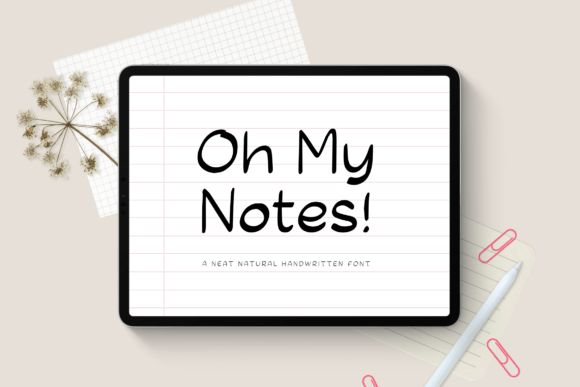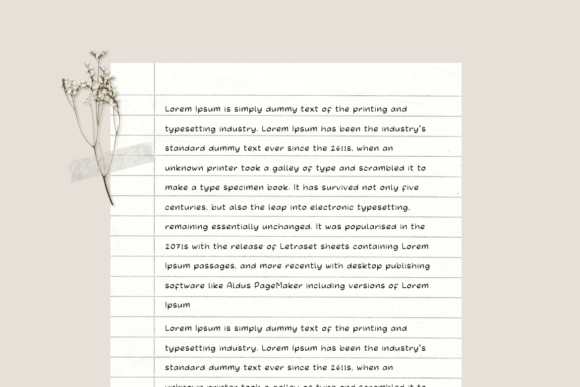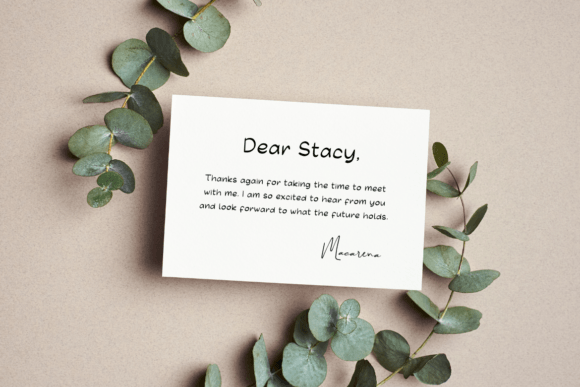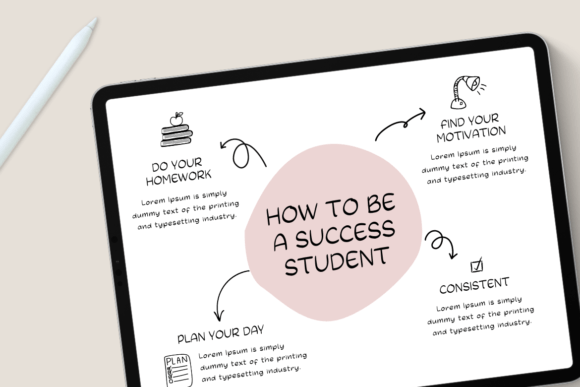
Oh My Notes Font
About Oh My Notes Font
**’Oh, My Notes’ Font: Casual, Natural, and Versatile**
The “Oh, My Notes” font is a casual handwritten typeface with a natural stroke that exudes a friendly and approachable vibe. Its neat and tidy appearance makes it suitable for a wide range of applications across various design projects. Here’s how you can make the most of the “Oh, My Notes” font:
1. **Note Taking and Digital Planners:** The font’s natural and casual handwriting style is perfect for digital planners, note-taking apps, journaling, and any digital or printed materials designed to mimic handwritten notes.
2. **Product Descriptions:** Use “Oh, My Notes” to create product descriptions for e-commerce websites and catalogs. Its approachable style can help convey product information in a friendly and engaging way.
3. **Headlines and Subheadings:** Design eye-catching headlines and subheadings for articles, blog posts, and presentations. The font’s natural strokes add a personal touch to your content.
4. **Product Paragraphs:** Enhance product descriptions with this font to create a warm and inviting atmosphere for potential customers. It can make your product descriptions more relatable and trustworthy.
5. **Logos and Branding:** Craft unique logos and branding elements that reflect a friendly and approachable brand personality. “Oh, My Notes” can add a personal and human touch to your brand identity.
6. **Social Media Graphics:** Create engaging and relatable social media posts, captions, and graphics. This font can help you establish a friendly and personable online presence.
7. **Greeting Cards:** Design greeting cards for various occasions such as birthdays, holidays, and special events. The font’s natural stroke gives a heartfelt and personalized feel to your messages.
8. **Packaging Design:** Use “Oh, My Notes” for packaging design to create a welcoming and down-to-earth look for your products. It’s especially suitable for artisanal and handcrafted goods.
9. **Menus and Restaurant Branding:** Incorporate the font into restaurant menus and branding materials to convey a cozy and homely atmosphere. It’s ideal for small eateries and cafes.
10. **Event Invitations:** Design invitations for informal and friendly gatherings. “Oh, My Notes” can help set the tone for a relaxed and enjoyable event.
11. **Bookmarks:** Create personalized bookmarks for bookstores, libraries, or as promotional items. The font’s natural stroke adds a touch of warmth to reading materials.
12. **Product Labels:** Apply the font to product labels, especially for homemade or handmade items, to emphasize their authenticity and personal touch.
13. **Quotes and Lettering:** Use “Oh, My Notes” for crafting custom lettering and typographic artwork. It’s perfect for creating inspirational quotes and personalized messages.
14. **Blog Headers:** Design blog headers and featured images with a friendly and handwritten touch to make your blog posts more relatable and approachable.
15. **DIY Projects:** Incorporate the font into various DIY projects, such as creating personalized gifts, scrapbooking, and crafting.
“Oh, My Notes” font’s casual and natural stroke, combined with its versatility, makes it a valuable addition to your font collection. Whether you’re working on digital or print projects, this font can infuse a sense of approachability and authenticity, helping you connect with your audience on a personal level and make your designs feel more relatable and welcoming.